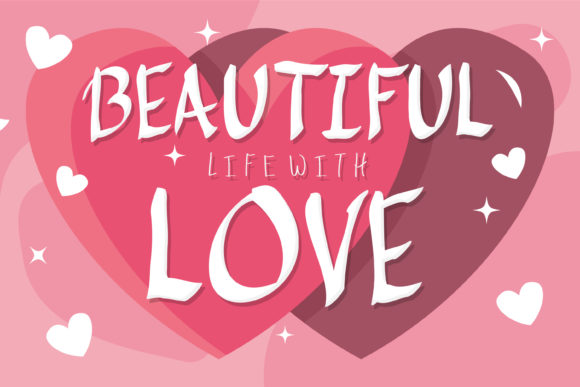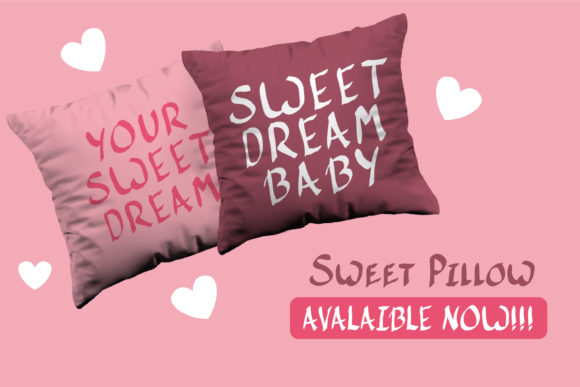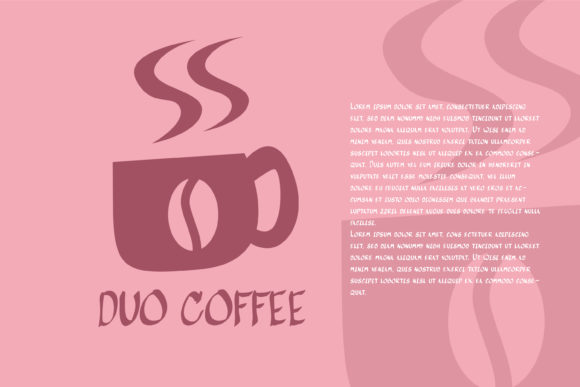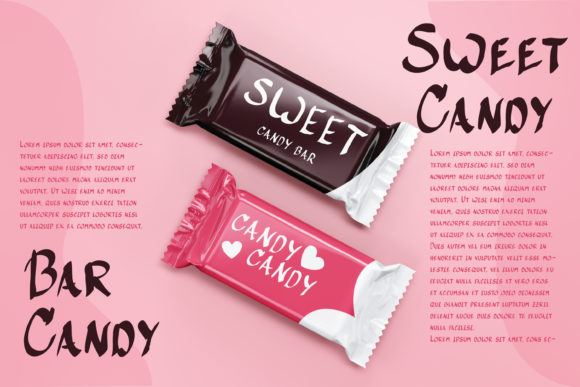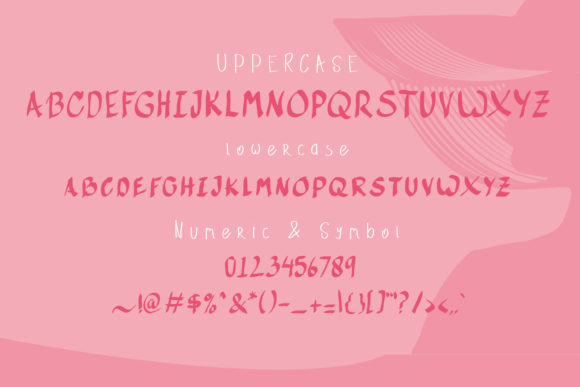
Introducing Calita Font: The Charming Handwritten Font for Your Design Projects
Are you looking for a font that adds a touch of elegance and whimsy to your design projects? Look no further than Calita Font! This beautiful handwritten font boasts a unique style that is sure to capture the attention of your audience. With its charming appearance, Calita Font is perfect for designers and crafters who want to add a personal touch to their work.
What Makes Calita Font So Special?
Calita Font is a carefully crafted handwritten font that exudes warmth and sophistication. Its unique style is characterized by flowing lines, subtle imperfections, and a dash of playfulness. This font is designed to evoke emotions and create a connection with your audience. Whether you’re working on a branding project, a wedding invitation, or a DIY craft, Calita Font is the perfect choice.
Key Features of Calita Font
- Unique Handwritten Style: Calita Font features a one-of-a-kind handwritten style that sets it apart from other fonts.
- Charming Appearance: The font’s charming appearance makes it perfect for designs that require a personal touch.
- Easy to Read: Despite its whimsical nature, Calita Font is easy to read and understand, making it suitable for body text and headings.
- Versatile: Calita Font can be used for a wide range of design projects, from branding and advertising to crafting and DIY.
How to Use Calita Font in Your Design Projects
Using Calita Font in your design projects is easy! Here are a few ideas to get you started:
- Branding and Logo Design: Use Calita Font to create a unique and memorable logo for your brand.
- Wedding Invitations and Stationery: Add a touch of elegance and whimsy to your wedding invitations and stationery with Calita Font.
- DIY Crafts and Scrapbooking: Use Calita Font to add a personal touch to your DIY crafts and scrapbooking projects.
- Social Media Graphics: Use Calita Font to create eye-catching social media graphics that stand out from the crowd.
Tips for Getting the Most Out of Calita Font
Here are a few tips for getting the most out of Calita Font:
- Experiment with Font Sizes and Colors: Play around with different font sizes and colors to find the perfect combination for your design.
- Pair with Other Fonts: Pair Calita Font with other fonts to create a unique and visually appealing combination.
- Use in Combination with Images: Use Calita Font in combination with images to create a stunning visual effect.
In conclusion, Calita Font is a beautiful handwritten font that is sure to add a touch of charm and elegance to your design projects. With its unique style, charming appearance, and versatility, Calita Font is perfect for designers and crafters who want to create stunning designs that stand out from the crowd. So why wait? Download Calita Font today and start creating your own beautiful designs!